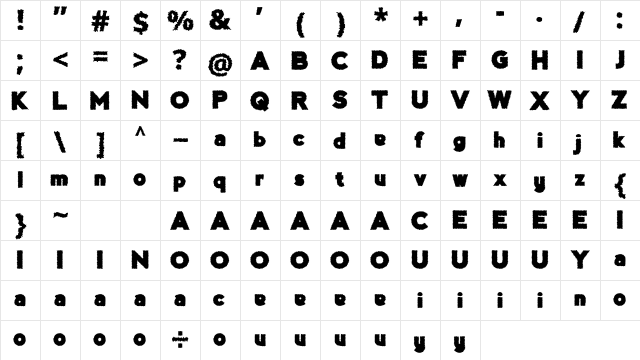
Brewok Regular
| Designer | Ahmad Syarif Afandi & Christ Desmon (Peterdraw) |
Design Context for Brewok Typeface
Brewok takes a measured approach to typography — its balanced proportions and neutral character make it a reliable workhorse for both digital and print work.